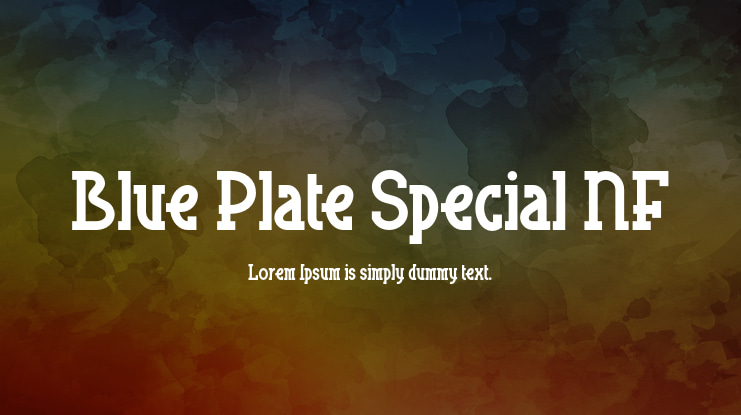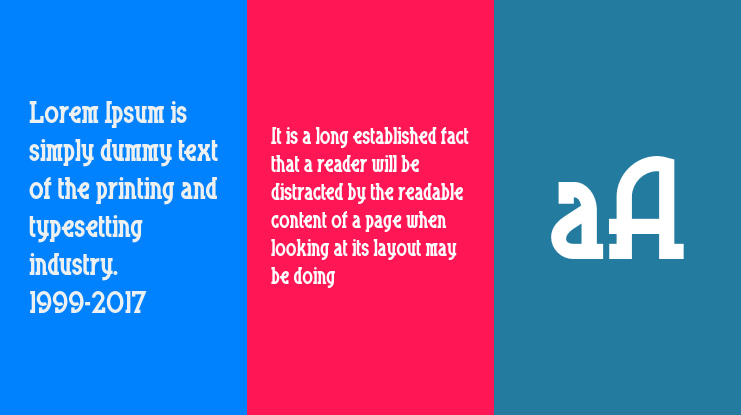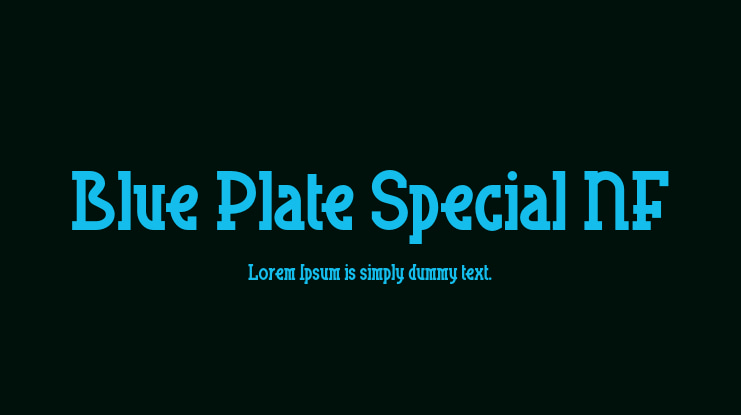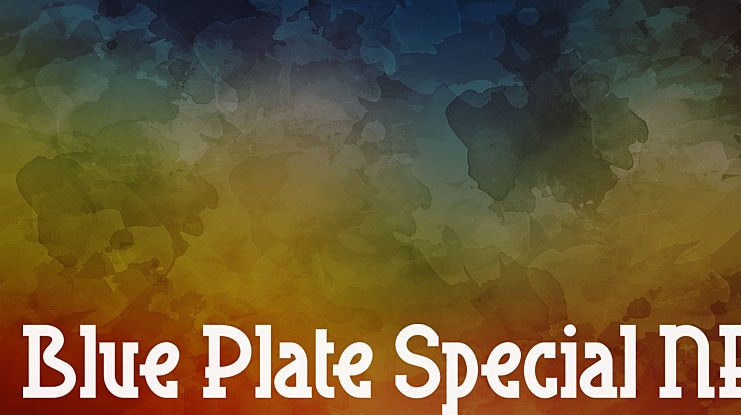
Another font with a futuristic feel from the fevered imagination of Samuel Welo, from the 1927 edition of his Studio Handbook for Artists and Advertisers. The PC font has a complete professional character set, including Z carons, slash Ls and fi and fl ligatures; the Mac font is complete except for some math symbols and the Apple logo.